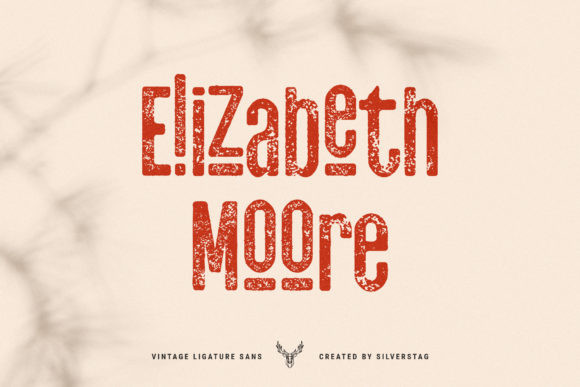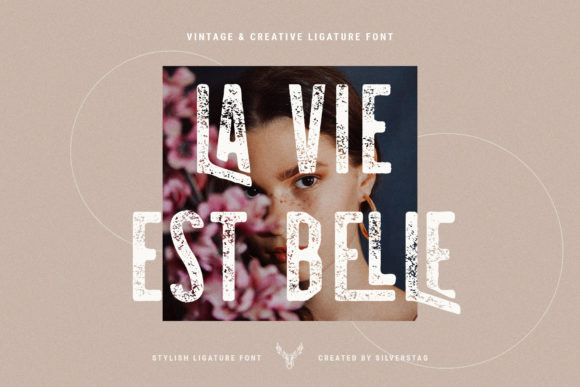
Skyline Font
Skyline is a vintage styled sans serif font. It looks both elegant and interesting and is ideal for a wide variety of designs. Let your imagination run wild!